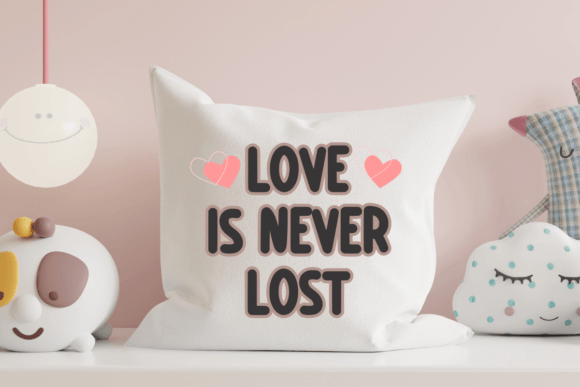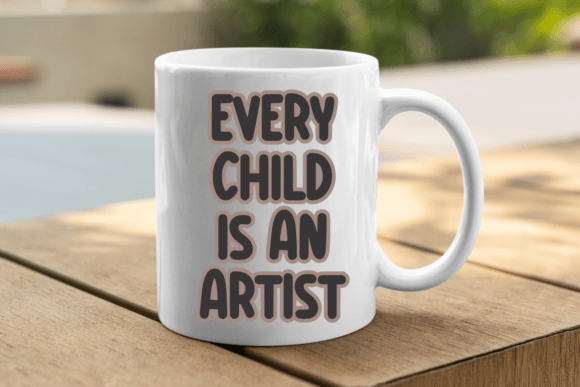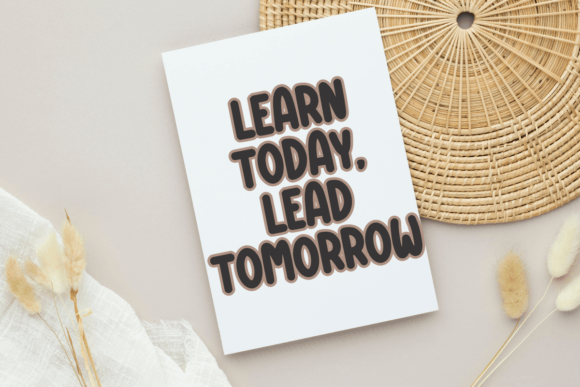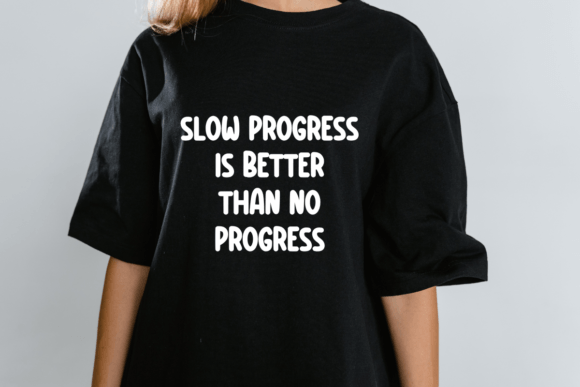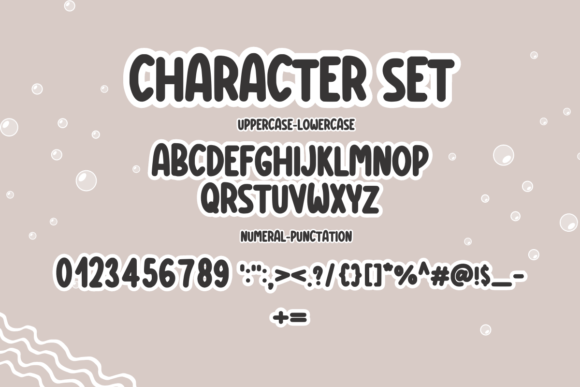
Bursting with Creativity: The Joy of Bubble Joy Font
Have you ever been in the middle of a creative project, and suddenly, the perfect font pops into your mind? That’s exactly what happened to me when I stumbled upon the Bubble Joy Font. It was like a breath of fresh air, and I knew I had to share it with fellow designers and creatives.
Bubble Joy Font is a delightful display font that’s sure to bring a smile to your face. Its playful, whimsical design makes it the perfect addition to any project, whether it’s a children’s book, a social media graphic, or a fun advertisement. This font is a valuable asset to any font library, and I’m excited to dive into its features and show you why it’s a must-have for designers.
Bubble Joy Font Key Features
- Unique Characteristics: Bubble Joy Font features a playful, whimsical design with rounded shapes and a mix of uppercase and lowercase letters, making it ideal for creative and informal projects.
Bubble Joy Font Review
Overall, I found Bubble Joy Font to be a delightful and whimsical choice for any design project. ✨ The font’s playful nature and rounded edges make it perfect for adding a touch of fun to your designs. It’s great for creating a child-friendly atmosphere or for adding a splash of color to your branding.
Here are some of the things that I think work well with Bubble Joy Font:
- ✨ Whimsical and playful design
- ✨ Perfect for creating a child-friendly atmosphere
- ✨ Rounded edges add a touch of friendliness
- ✨ Great for adding a splash of color to your branding
- ⚠️ May not be suitable for formal or professional designs
- ⚠️ Can be difficult to read in smaller sizes
- ⚠️ Limited font sizes and weights available
Overall, I think Bubble Joy Font is a great choice for designers looking to add a touch of fun and whimsy to their projects. While it may not be suitable for every design, it’s definitely worth considering for projects that require a playful and child-friendly atmosphere.
Common Use Cases for Bubble Joy Font
The Bubble Joy Font is ideal for creating playful and whimsical designs, such as: